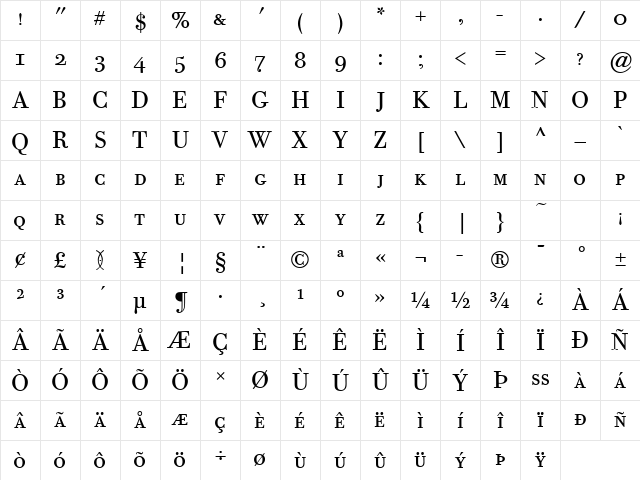
Complete Bodoni Twelve SC ITC TT Book glyph index. Displaying only characters natively supported by Bodoni Twelve SC ITC TT Book font.
Bodoni Twelve SC ITC TT is a composed and adaptable typeface that performs quietly and consistently across a wide range of design contexts.